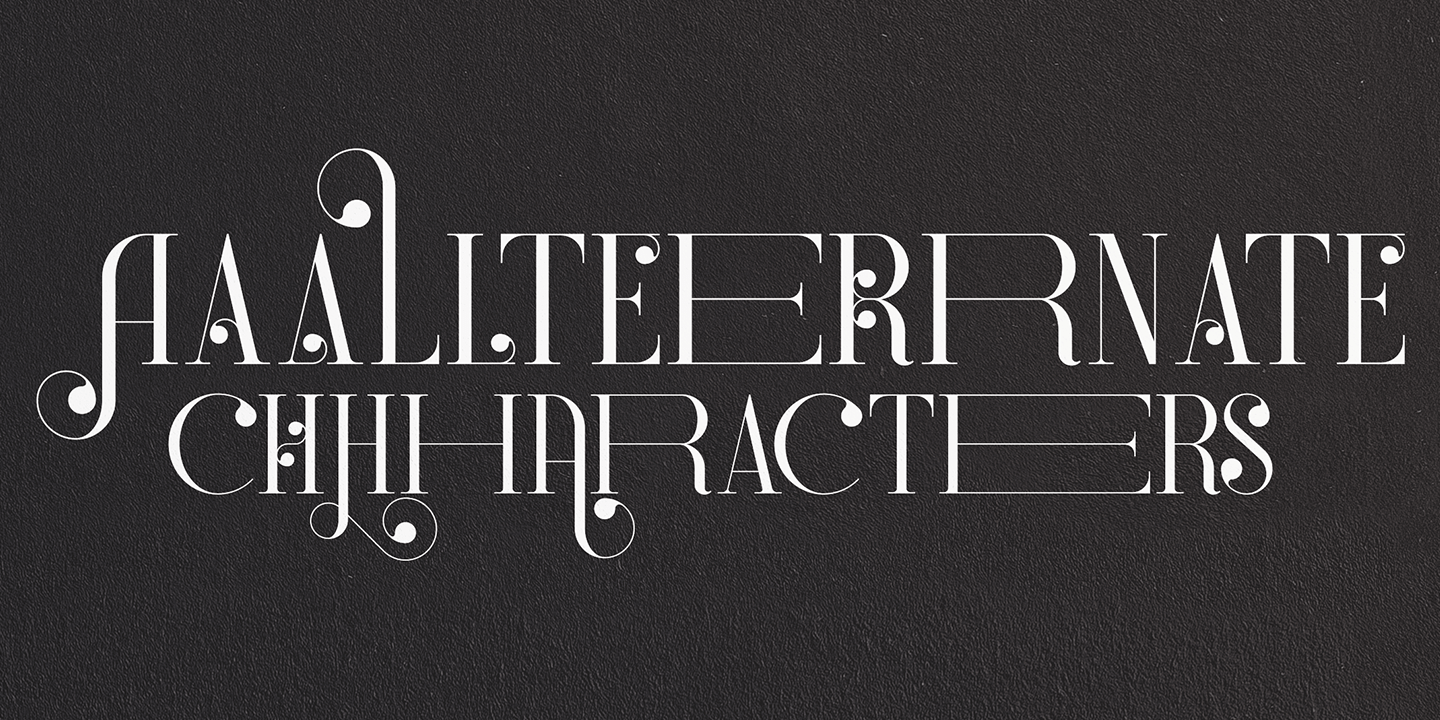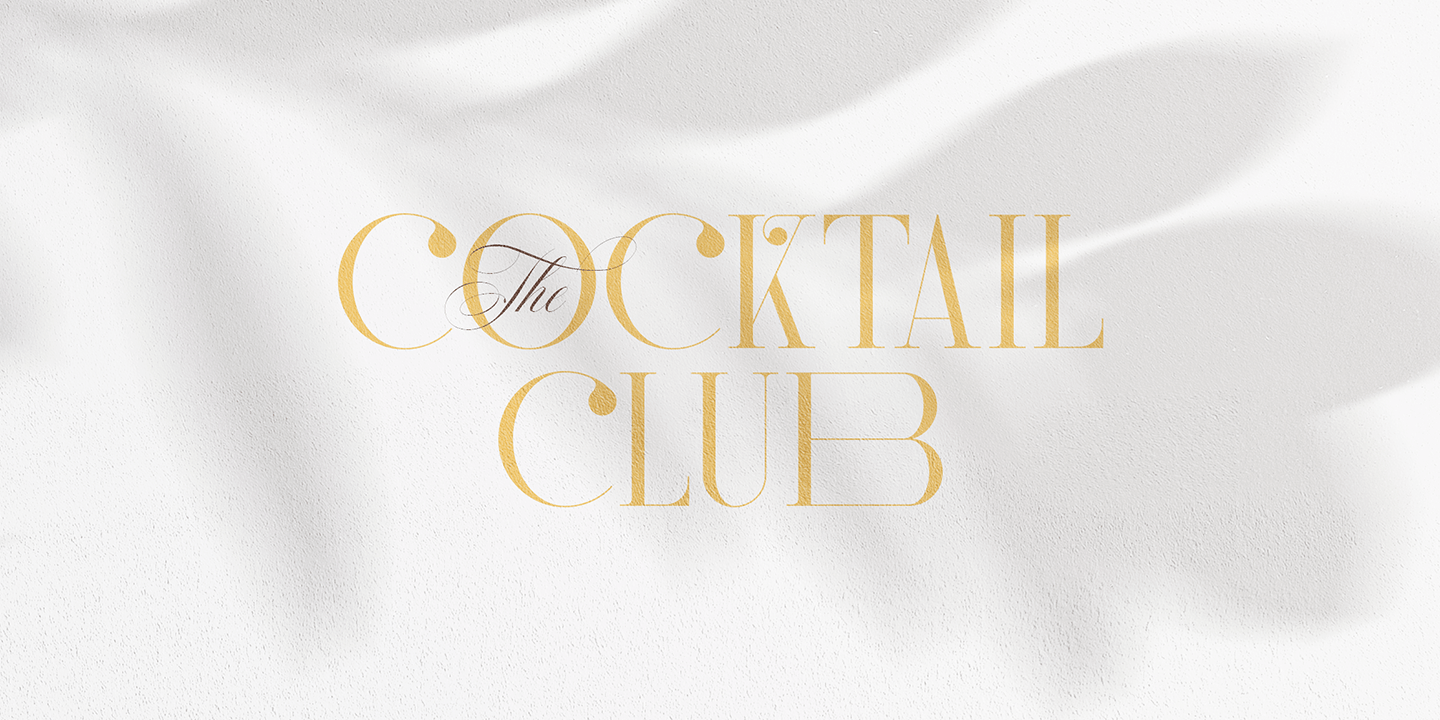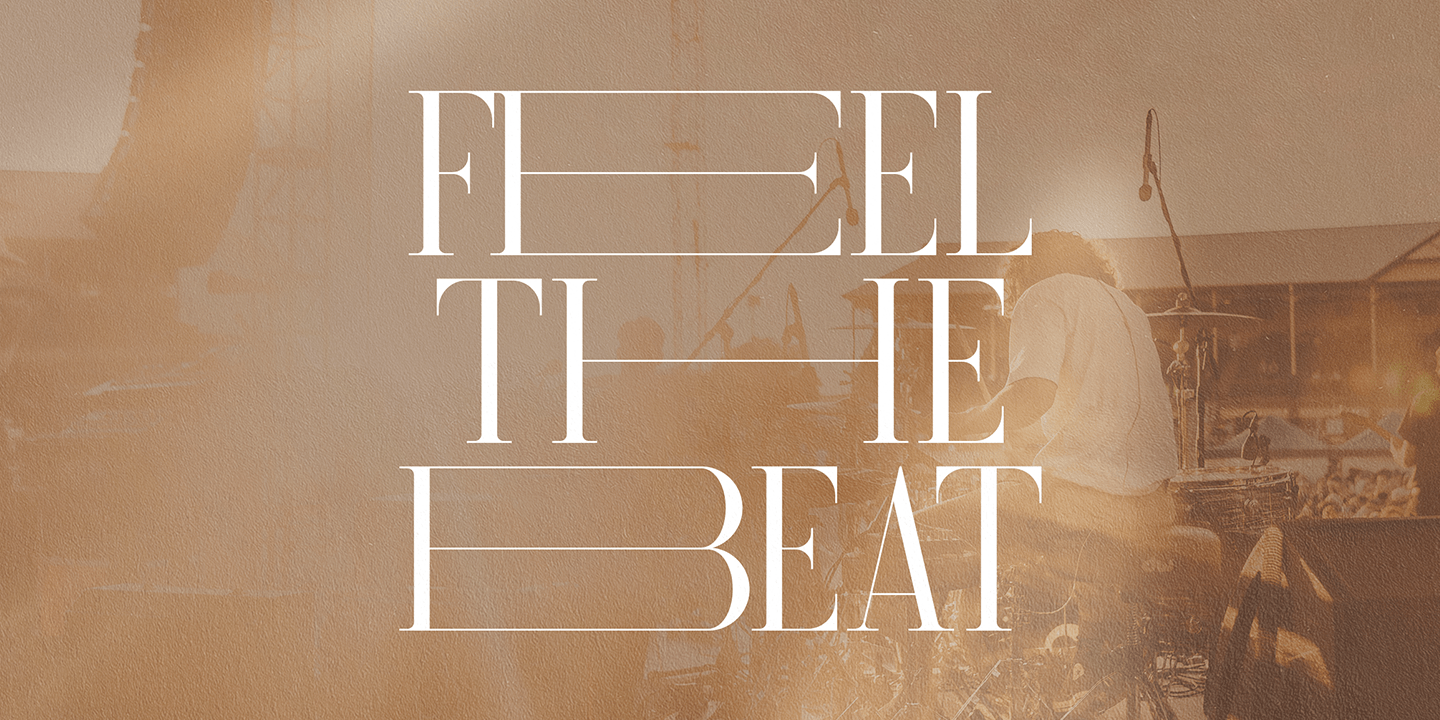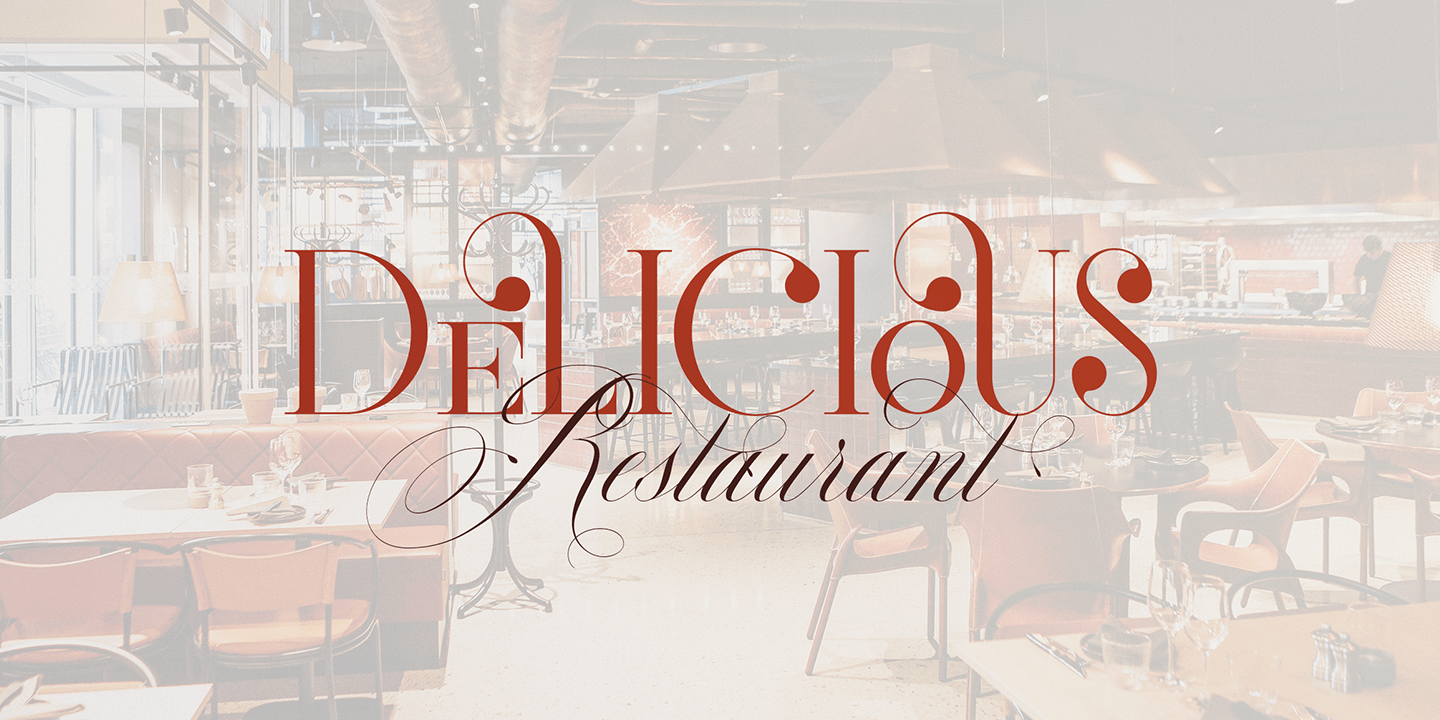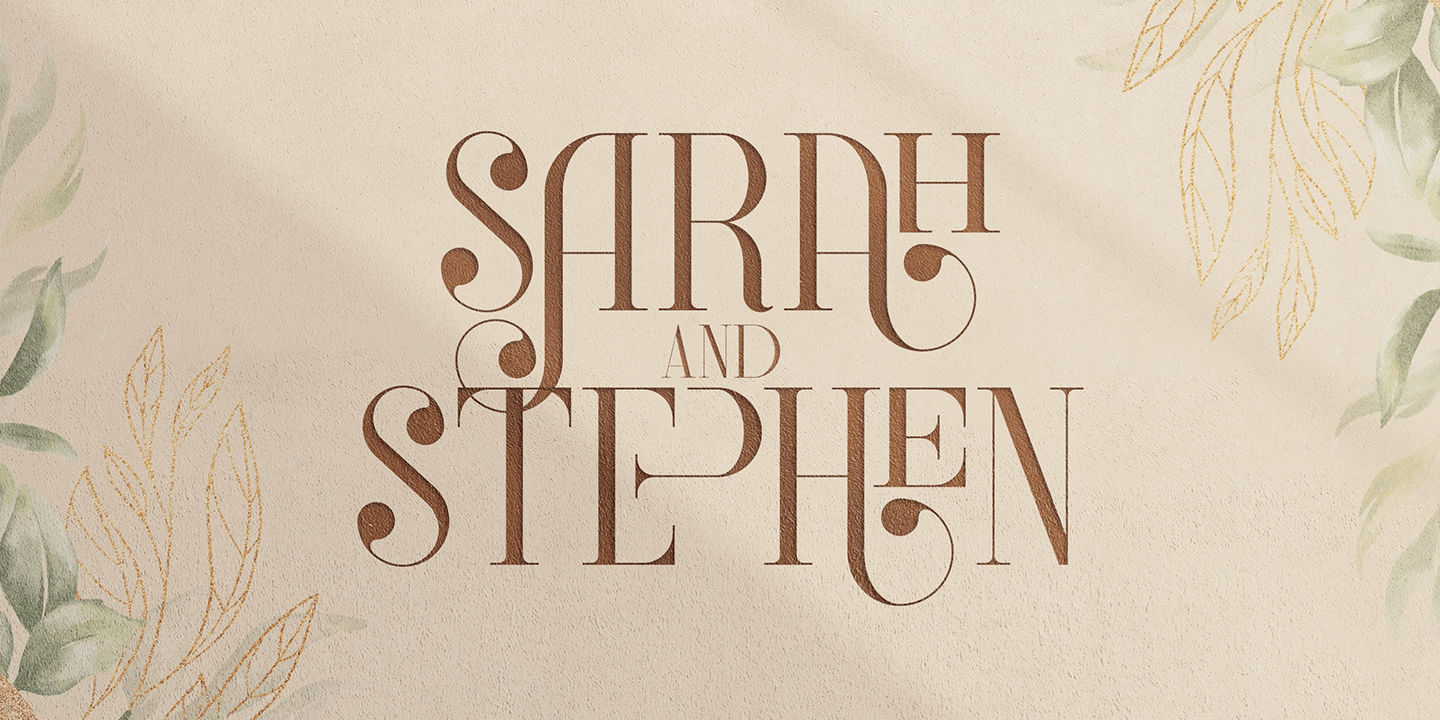
Introducing Redmark – Elegant all caps serif font Redmark is vintage yet clean font inspired from 80s typeface loaded with alternate and ligature glyphs to make you typography truly unique! Language Support : Belarusian, Bosnian, Bulgarian,…